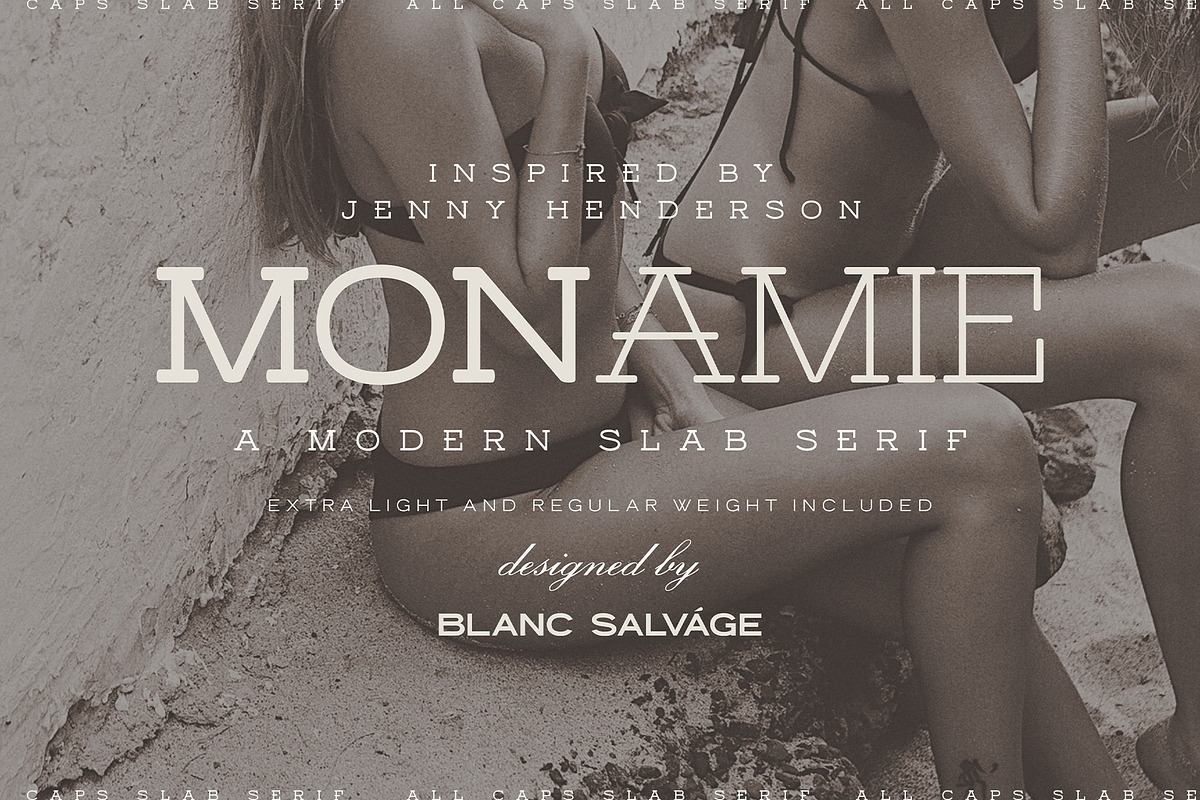
Mon Amie – Modern Slab Serif Font Free Download is a charming and contemporary typeface that brings boldness, warmth, and character to any design. Please note, you are required to purchase this font for commercial use. It is available for free download for testing and personal projects only.
With its sturdy slab serifs, clean lines, and subtle personality, Mon Amie is perfect for branding, editorial layouts, packaging, social media graphics, and creative headlines. It strikes a beautiful balance between classic structure and modern style—ideal for designers who want impact with elegance.